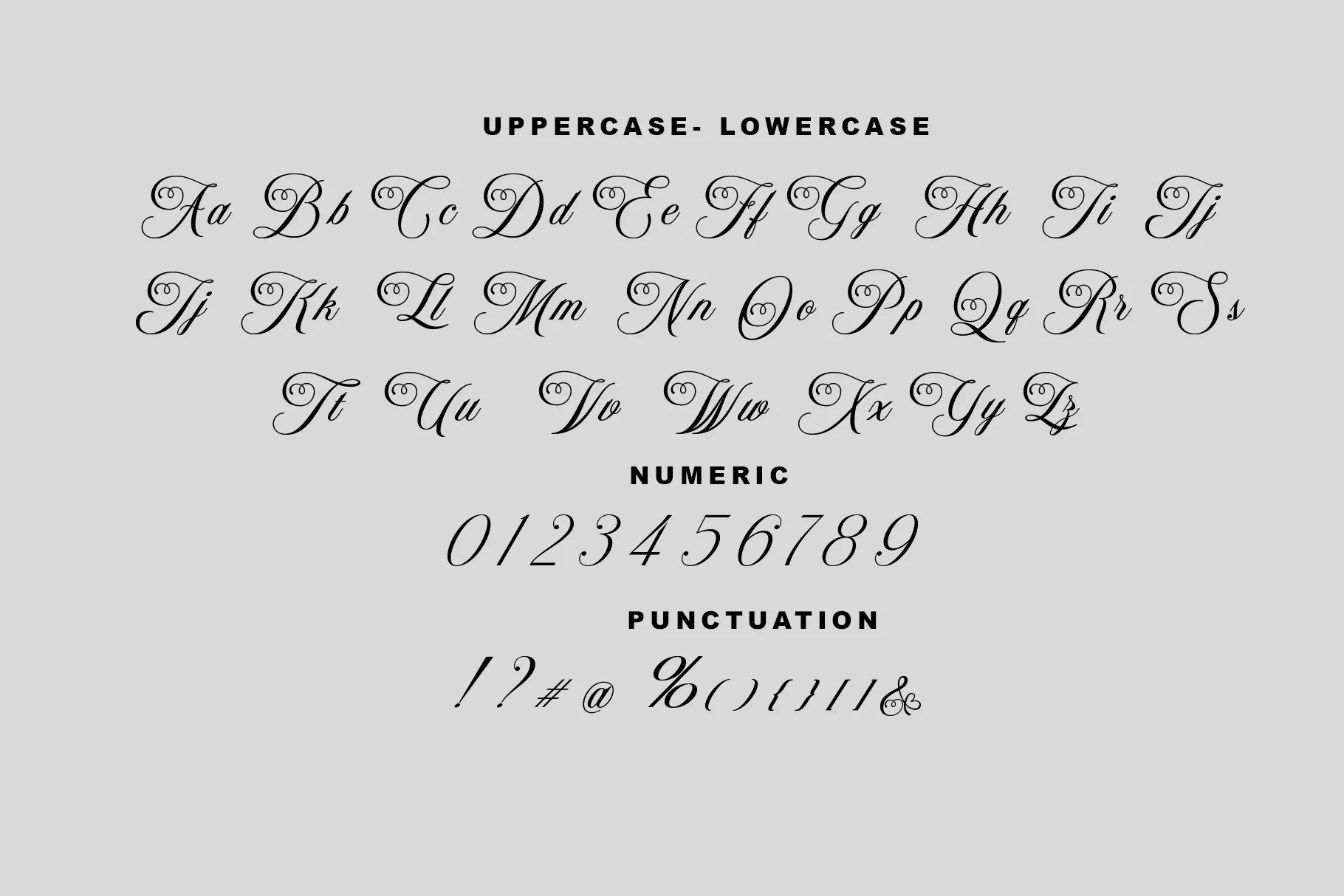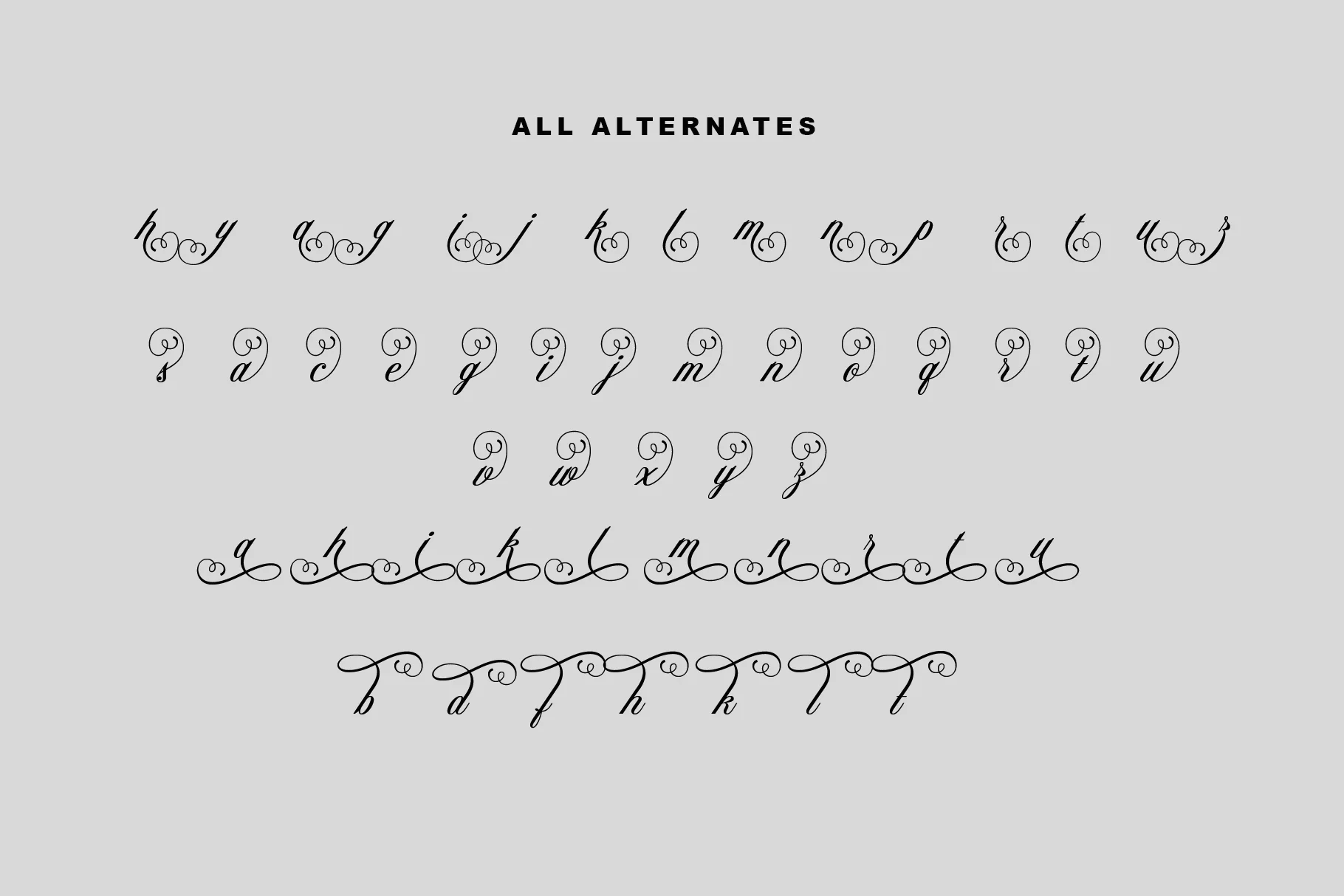
Bridesmaid
The "Bridesmaid" typeface projects an impression of elegance, luxury, and high decoration, with a strong focus on classical calligraphic beauty. This is a Beauty Script Typeface, emphasizing Alternate Stylistic glyphs. The style falls into the category of formal calligraphy or modern copperplate.The letters exhibit high contrast—meaning a dramatic alternation between thick and thin strokes—typical of writing done with a dip pen. This font feels historic, artistic, and very feminine, suitable for designs that require a high-level personal touch and luxury. Ideal for wedding invitations, branding for luxury products (jewelry, perfume), premium wine labels, headers for fashion magazines, and logos that aim to emphasize beauty, grace, and a touch of craftsmanship.